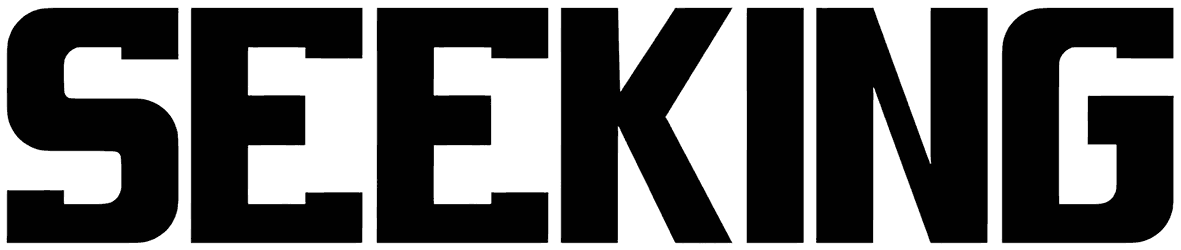
Seeking Font
To be honest, Seeking really looks perfect on a tremendous number of graphic content ranging from posters, gift cards, and business cards, to product packaging.